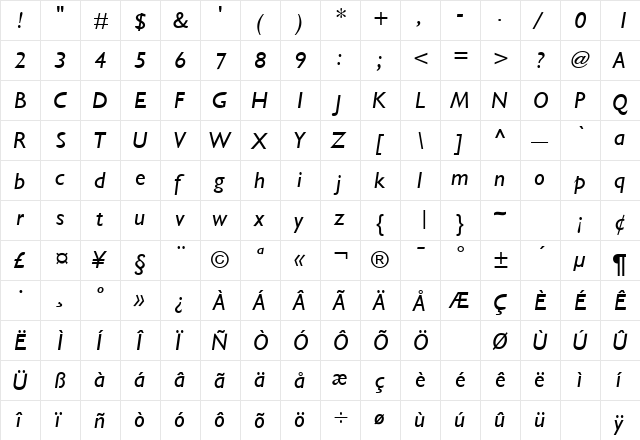
Gentle Sans Italic
Design Context for Gentle Sans Typeface
Gentle Sans offers clean, dependable letterforms without strong stylistic allegiance, making it a practical choice for designers who need flexibility. Its italic angle brings a sense of urgency and motion to the letterforms.
Pro Tip: Try Gentle Sans for annotation and caption copy alongside an upright companion — the contrast in angle creates a dynamic but ordered typographic system.